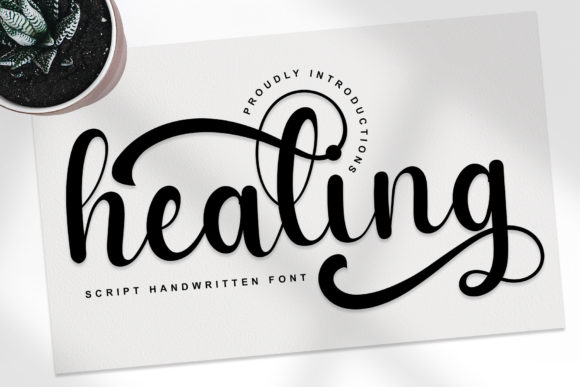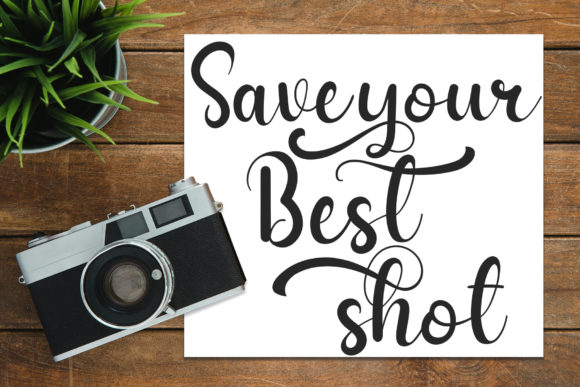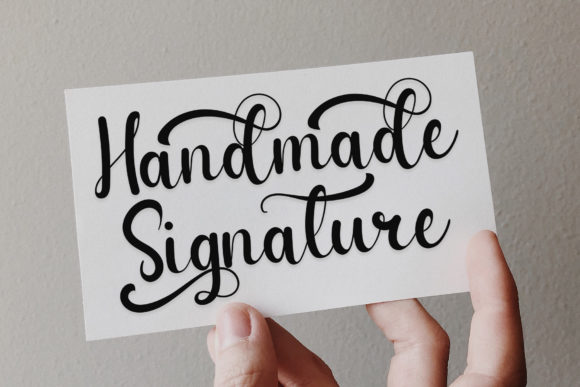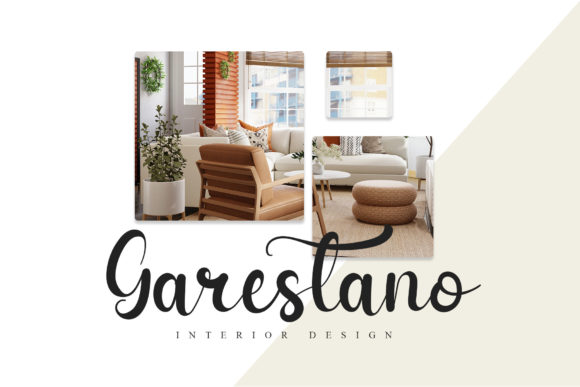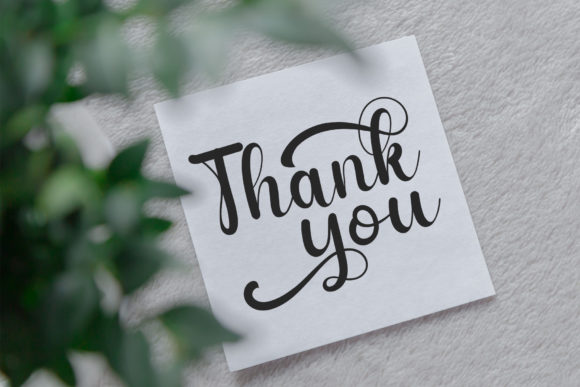
Healing Font
“Healing” is a delightful and refined script font that emanates a sense of elegance and sophistication. Its meticulously crafted characters and graceful curves make it a perfect choice for projects that require a touch of beauty and a revitalizing aesthetic.
The font’s delicate and stylish design is well-suited for a variety of creative endeavors. It is particularly well-suited for designs that aim to convey a sense of luxury, such as high-end branding, upscale invitations, and sophisticated marketing materials. The font’s flowing strokes and intricate details contribute to its overall sense of class and refinement.
“Healing” can add a refreshing and rejuvenating touch to your design projects. Whether you’re creating wedding invitations, thank-you cards, quotes, or other personalized items, the font’s elegant appearance will elevate the visual impact of your message. Its versatility also extends to digital media, where it can enhance social media posts, website graphics, and other online content.
One notable feature of “Healing” is its inclusion of a wide range of glyphs and swashes. The font’s PUA encoding allows you to easily access and use these special characters, enabling you to customize and embellish your designs with intricate flourishes. This adds an extra layer of creativity and uniqueness to your projects.
In summary, “Healing” is a font that exudes beauty, elegance, and a sense of renewal. Its delicate script style makes it an excellent choice for a variety of design applications, from branding and invitations to digital media and more. With its PUA encoding and array of glyphs, “Healing” offers the creative freedom to enhance your designs with personalized touches and intricate details.